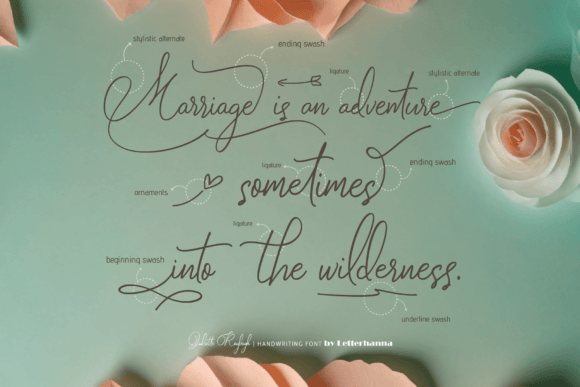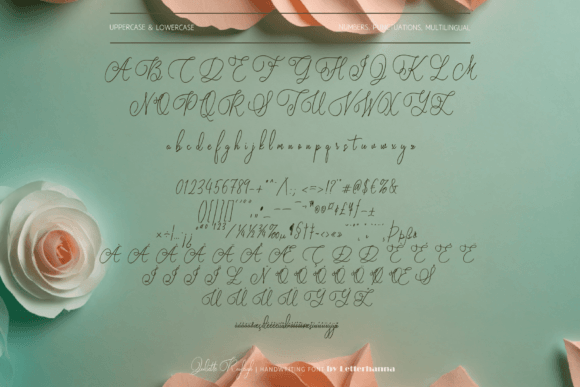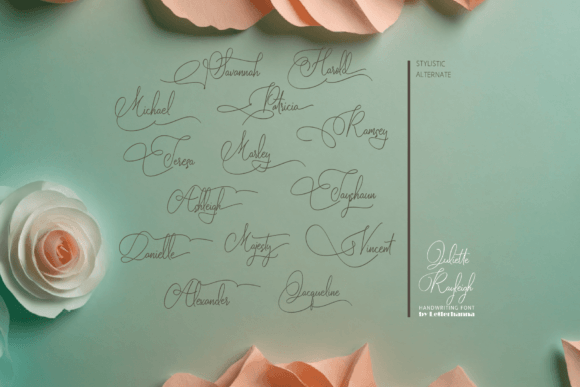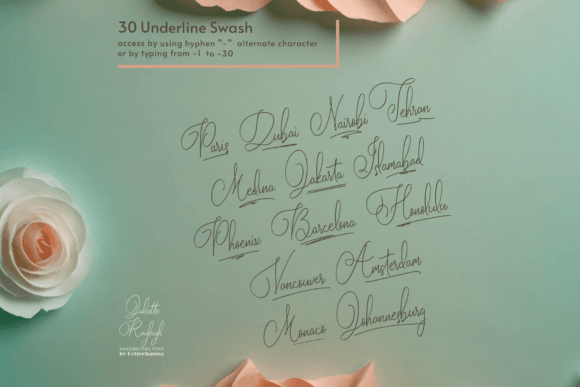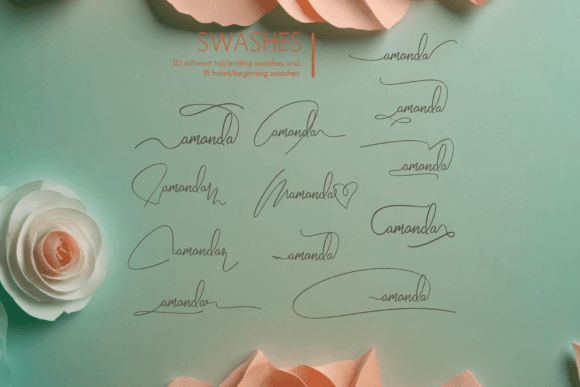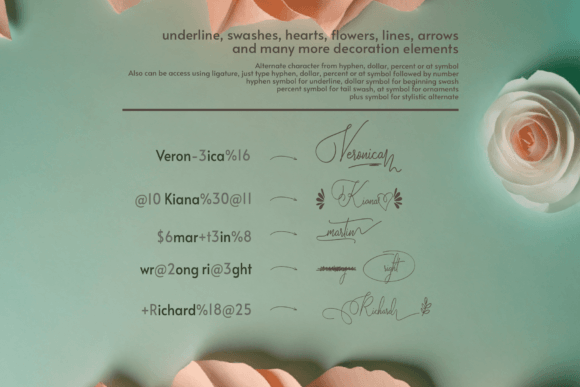
Introduction to Juliette Rayleigh Font
Introducing Juliette Rayleigh, a new typeface that embodies timeless elegance and classic charm.
Juliette Rayleigh is more than just a font; itโs a calligraphic invitation to a world of sophistication Designed with the modern writer in mind, this script boasts a beautiful balance of classic letterforms and a touch of contemporary flair.
Key Features of Juliette Rayleigh Font
Why Choose Juliette Rayleigh Font?